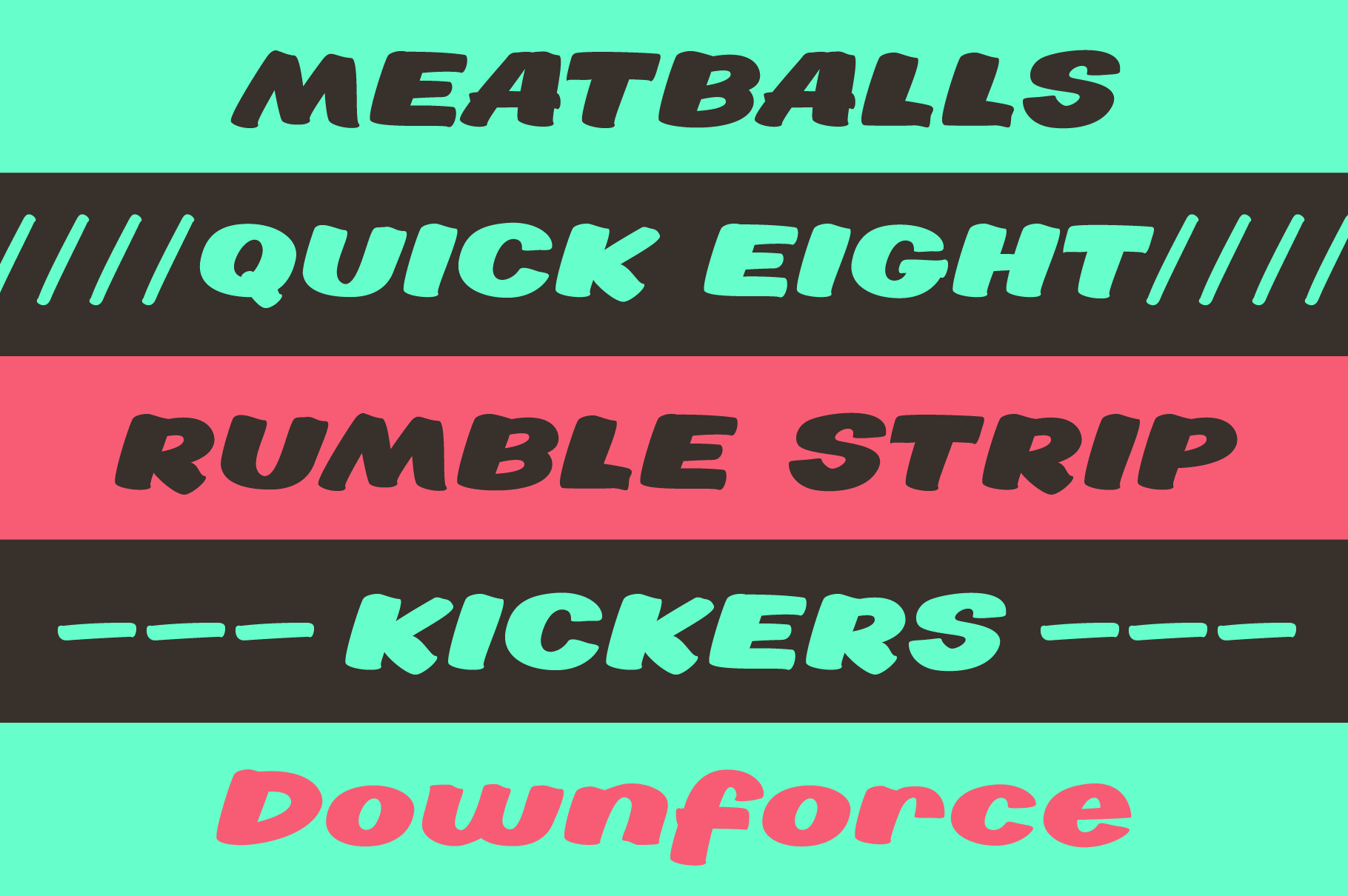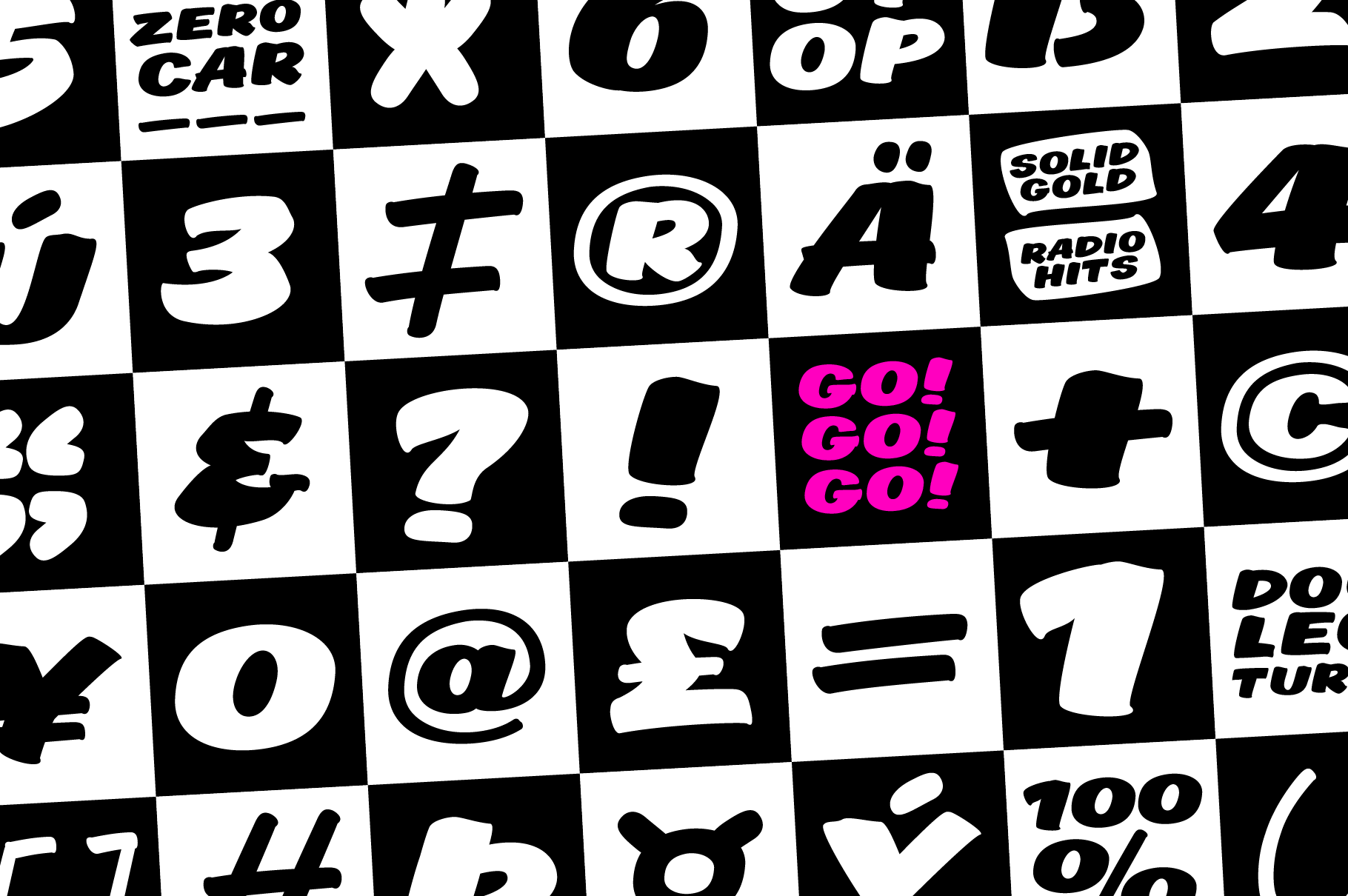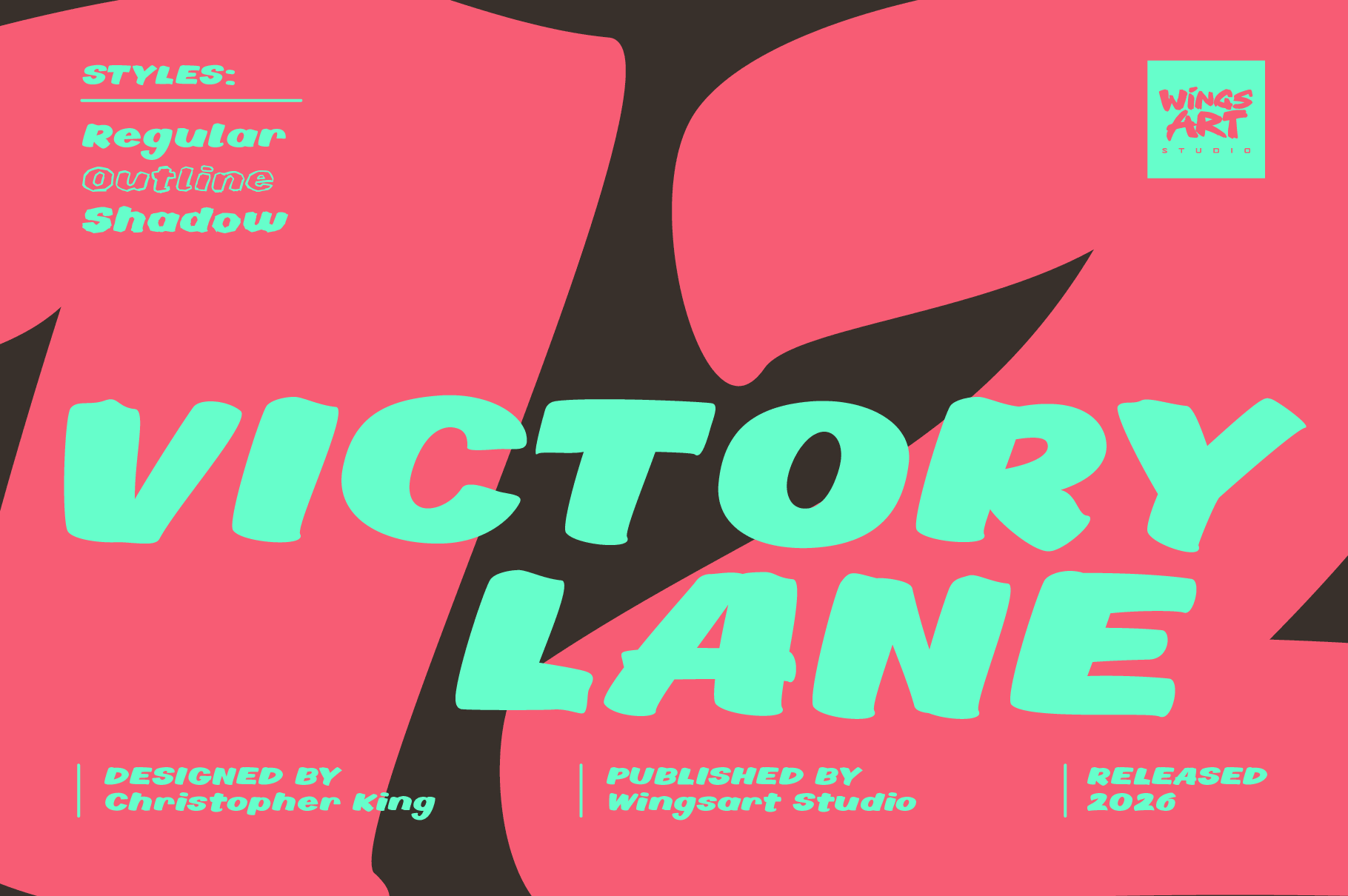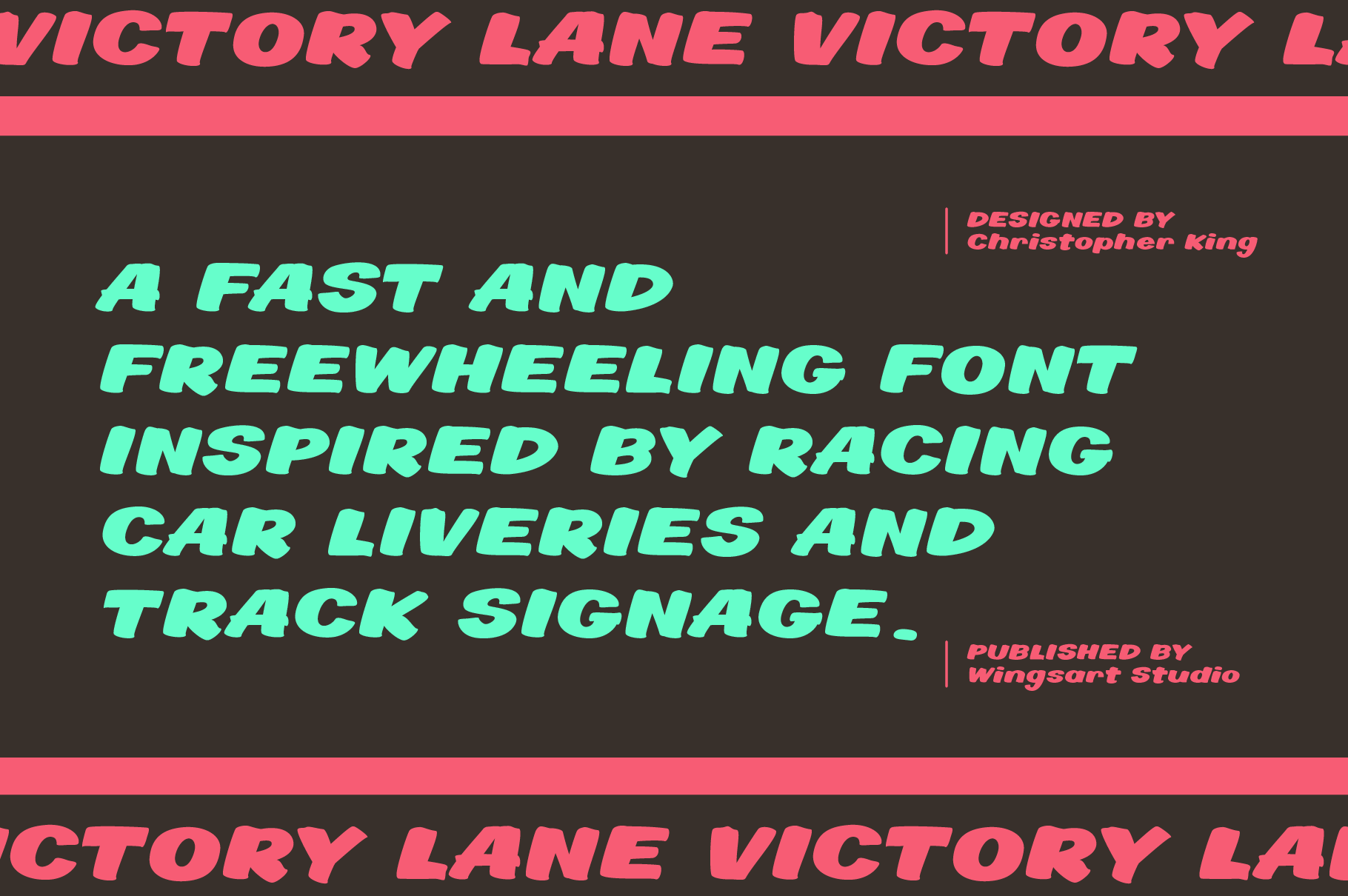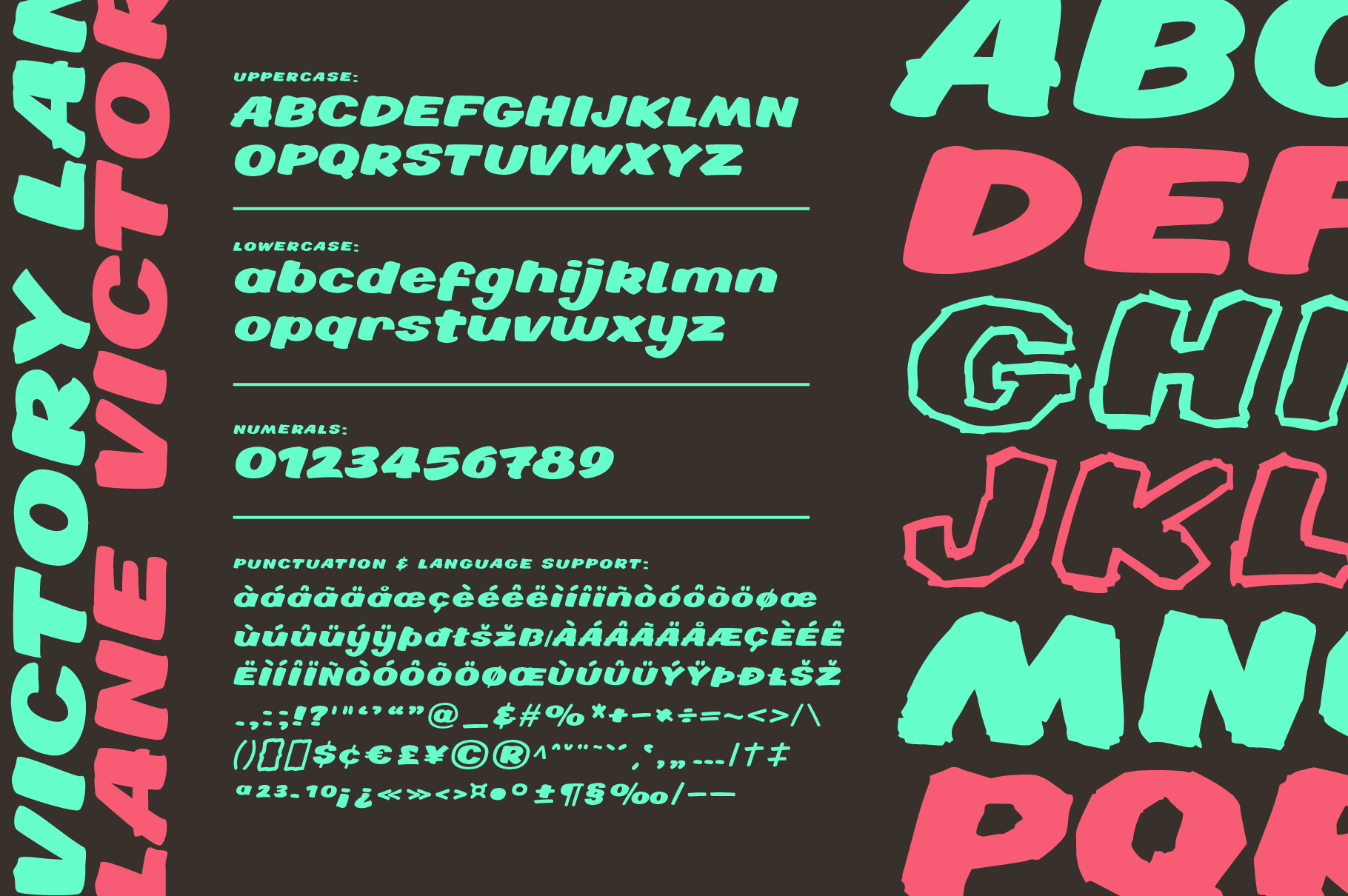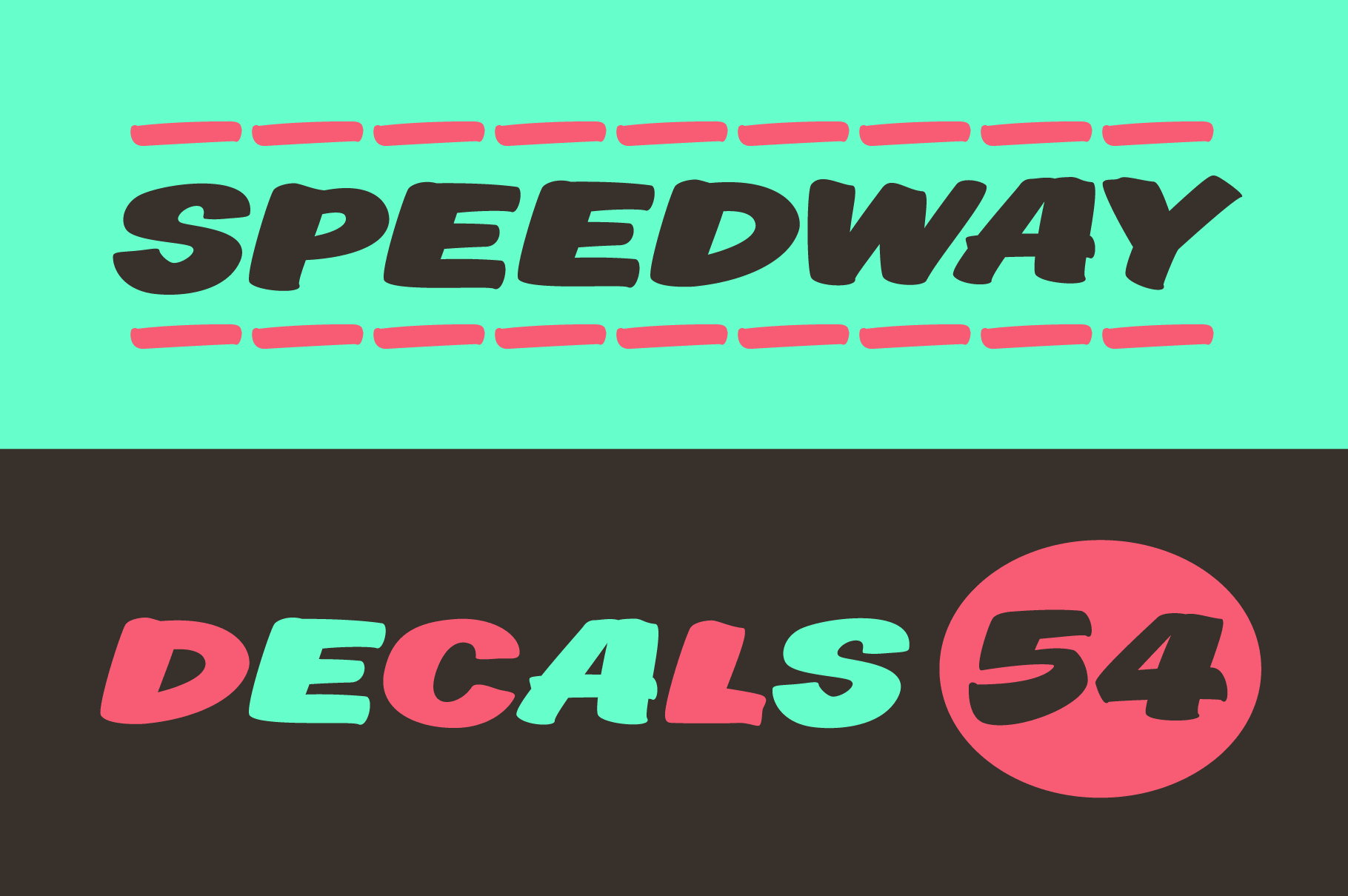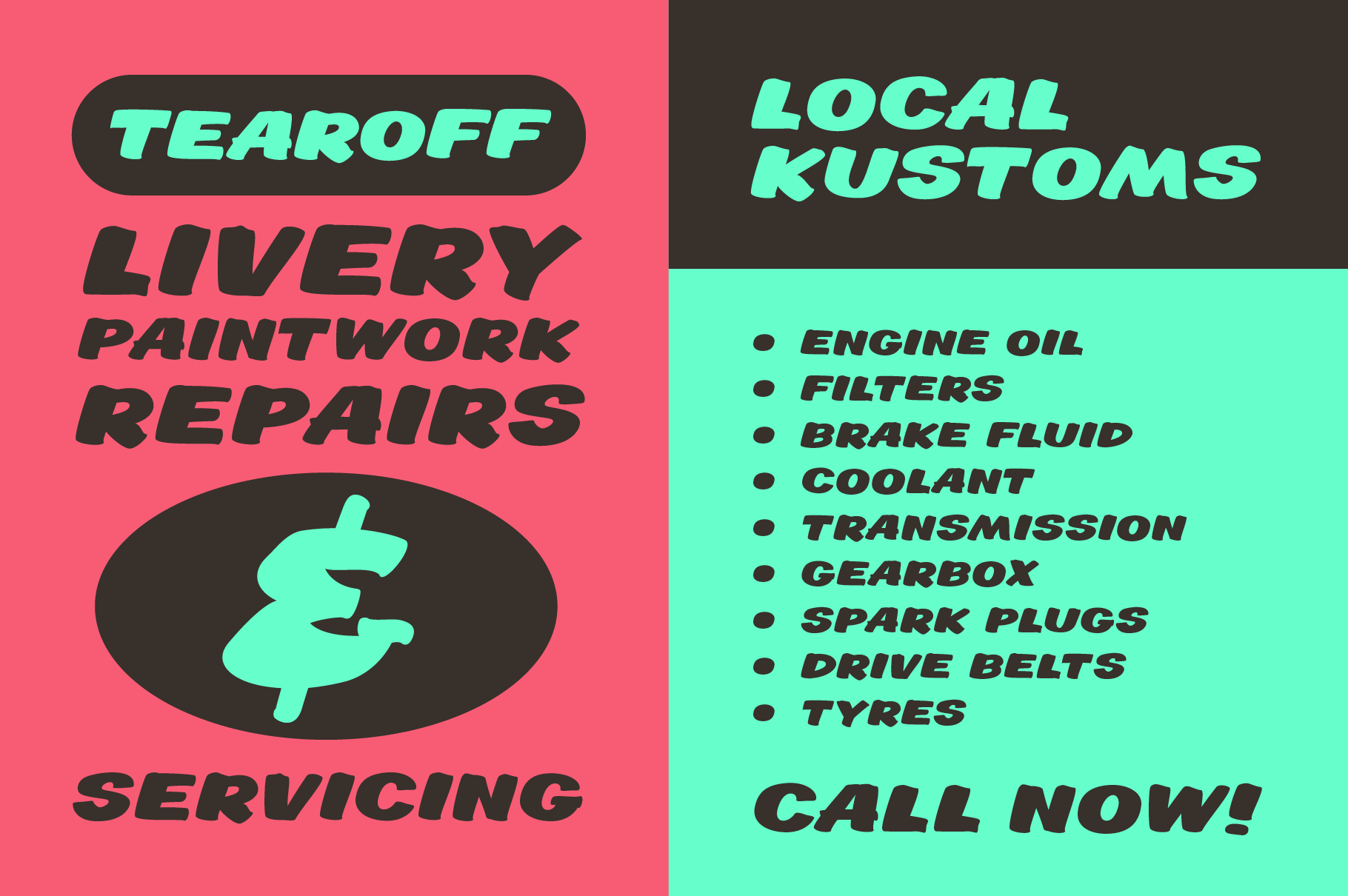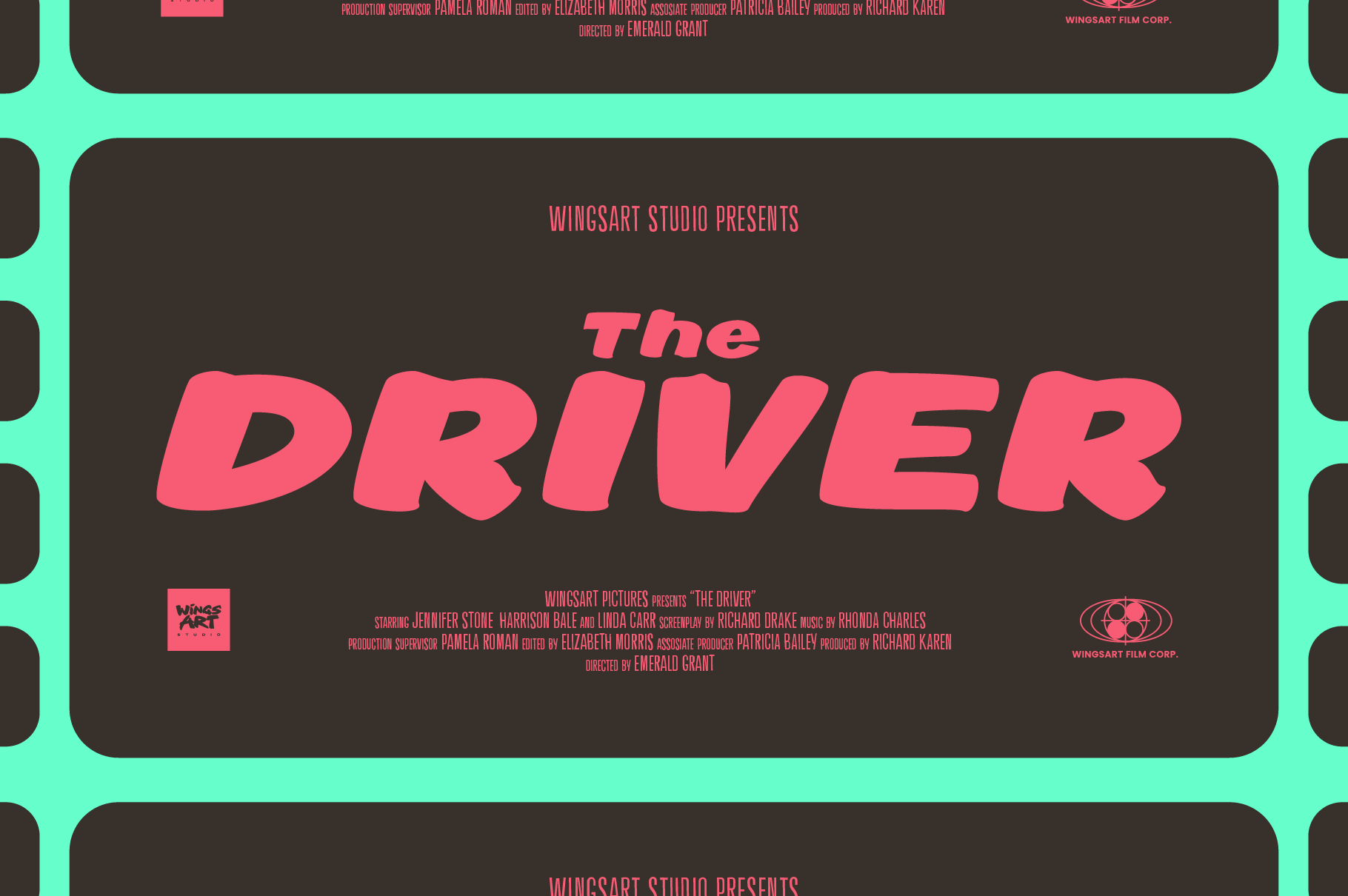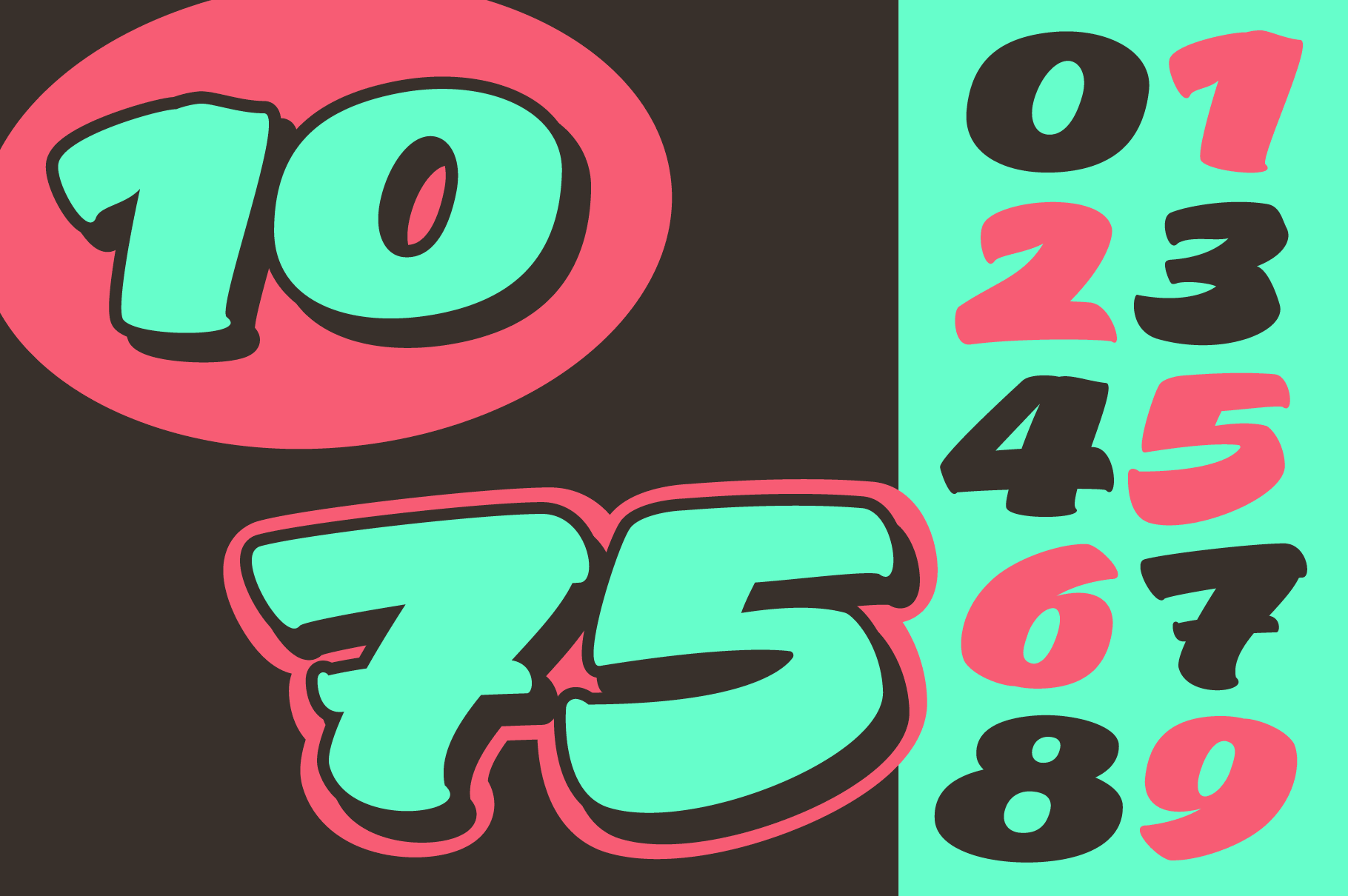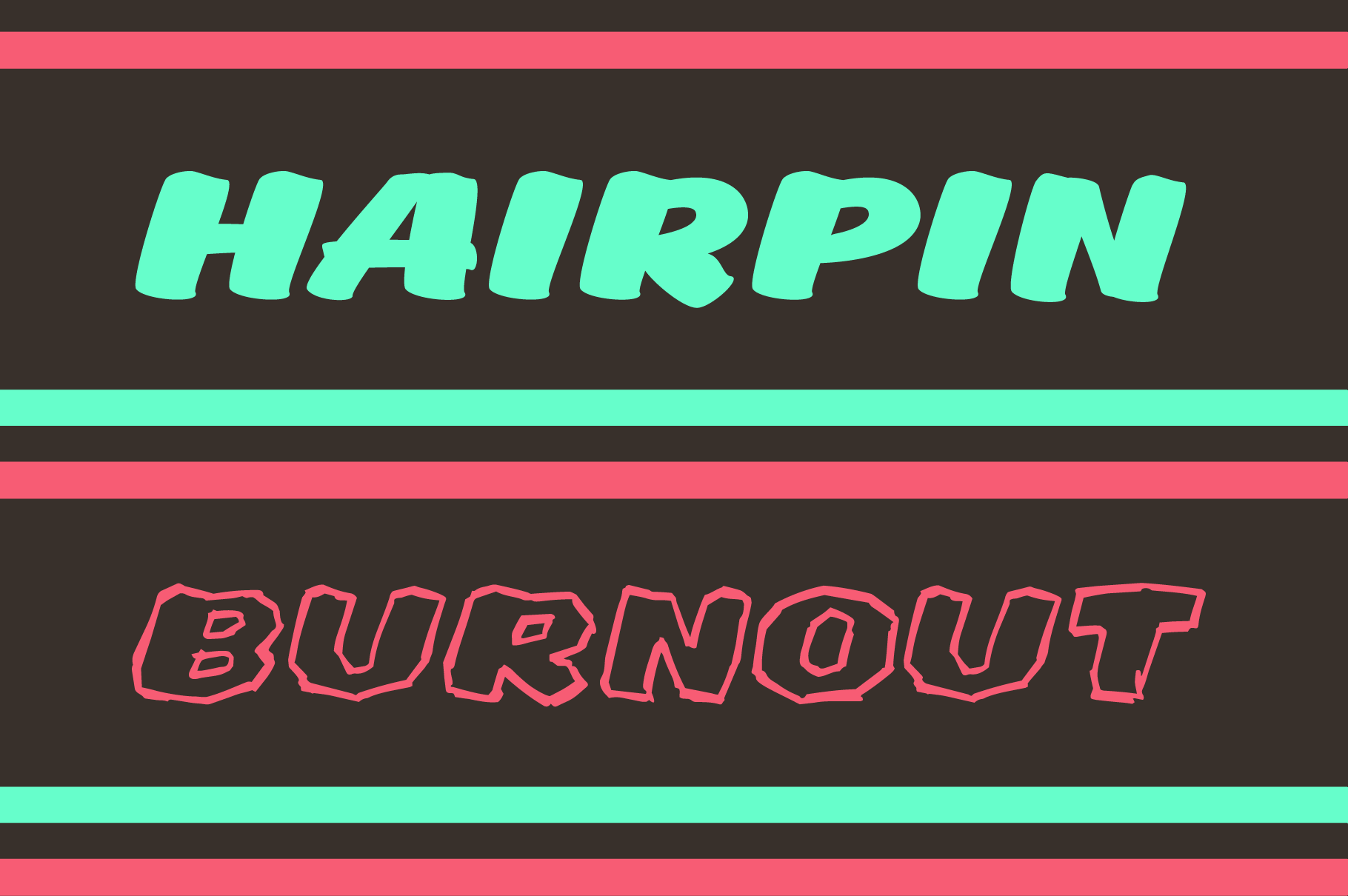
A Brush Font Built for the Racetrack
Inspired by the lettering of the racetrack.
Victory Lane is a free-wheeling brush font inspired by the lettering, liveries, and signage of the racetrack. Whether it’s Stock Car, Speedway, or Destruction Derby, this fast-paced font will carry your name and number to the finish line in style.
Its inherent italic slant and hand-painted brushwork share the visual aesthetics of petrol-heads and kustom culture, with the casual confidence of a low rider cruising at sunset. The Regular version is clean and lightweight, while the additional Sketched Outline and Shadow styles are perfect for layering graphic effects.
All variations include complete uppercase and lowercase alphabets, along with numerals, punctuation, and multi-language support.
Outside of the racetrack, Victory Lane is recommended for bold headers and title designs in posters, editorials, comic books, and marketing projects. Whatever your purpose, Victory Lane is a font with effortless cool, built for winners.
- Regular
- Sketch Outline
- Sketch Shadow